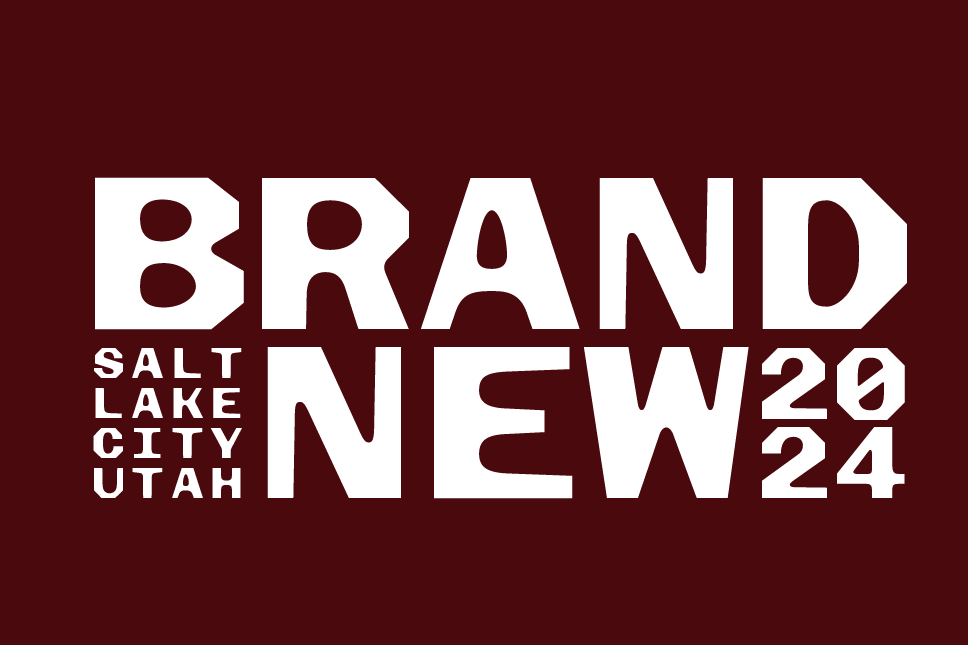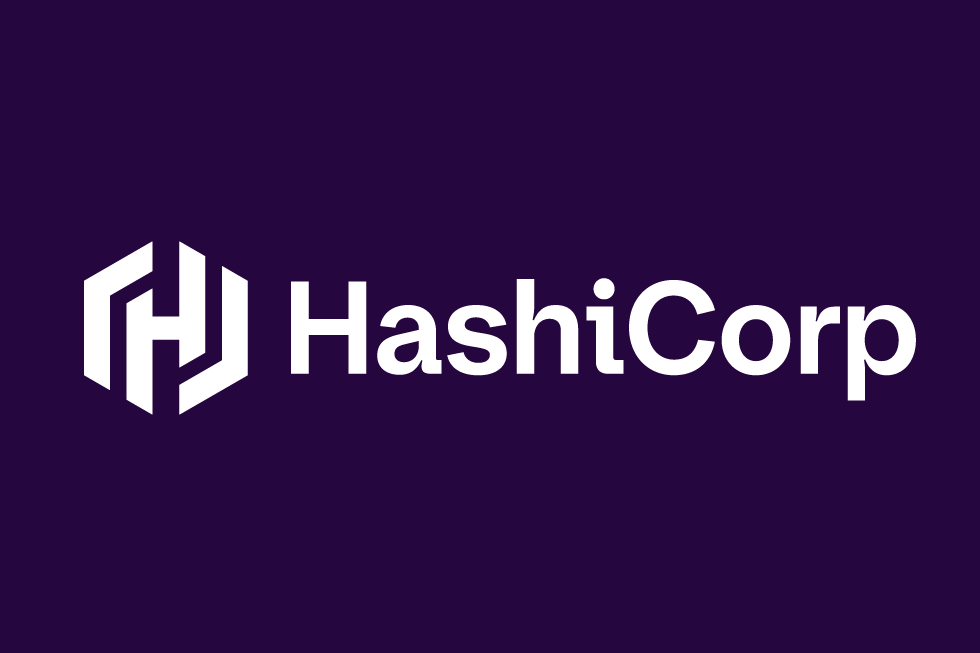
Custom type design
A custom typeface can anchor a strong visual identity, giving an organization a tool to maintain consistency at every level. We create type that puts control of your brand firmly in your hands.
Our collaborative process
Here’s an idea of what to expect when you collaborate with us on a custom typeface.
Research and visual audit
If you have an existing typographic system, we review it and speak with stakeholders to understand what is and isn’t working.
Discovery findings
We complete our research with recommendations to guide our next steps. Together, we align on aesthetic direction before design begins.
Initial concepts
Based on what we learn during our research phase, we deliver concepts in several different territories to build consensus with your team and narrow our design direction.
Beta font testing
From our concepts, we create a beta font—typically a full alphabet and basic punctuation—for you and your team to test. We incorporate your feedback in revised versions for further rounds of testing.
Final typeface design
We build out the extended character set, supporting Latin-based languages and other scripts if needed. We also add robust OpenType features and TrueType hinting.
Font software and support
We engineer technically precise font software, tuned to your priorities across current and legacy systems. You’ll get the formats you need—including variable fonts—and we support you through implementation.
The value of a custom typeface
Our continuing partnership with XYZ Type always comes back to their high craft, creative vision, and ability to express our clients’ strategic objectives through world-class typography.
Creative control
A custom typeface is designed based on your guidance and specifications. You can take part in the process from start to finish, ensuring the outcome fits your organization’s needs.
Brand integrity
We optimize our custom typefaces to work with existing assets and accurately express a brand at scale.
Adaptability
As a brand evolves with time, so should its typeface. Unlike an off-the-shelf font family, we can tweak or expand a custom typeface to fit changing needs.
Potential cost savings
In certain cases, a custom typeface can be more cost-effective than overpriced licensing fees.
Reduced vendor reliance
A one-time development fee, as opposed to subscription-based licensing, means one less vendor on your monthly fee list.
Custom-tailored fonts
For a quicker and more cost-effective option with similar benefits, we can custom-tailor one of our existing typefaces. We can redesign individual glyphs for a proprietary brand expression, adjust proportions based on use cases, add new styles, extend language support, and more.
Custom type design case studies
Updating an iconic typographic voice for New York magazine to work better across print and screen.
We replace two conflicting sans serifs with a custom typeface, streamlining the visual representation of an extensive catalog of cloud-computing products.
Working with Brunswick Creative, we capture the essence of a classic logo in a versatile and feature-rich script typeface for broad marketing applications.
Handpainted lettering on an 1870s streetcar inspires our boisterous monospace typeface for the leading visual identity conference.
Interbrand challenges us to unite a growing portfolio of divisions and products with a custom typeface that ties to this British institution’s legacy.
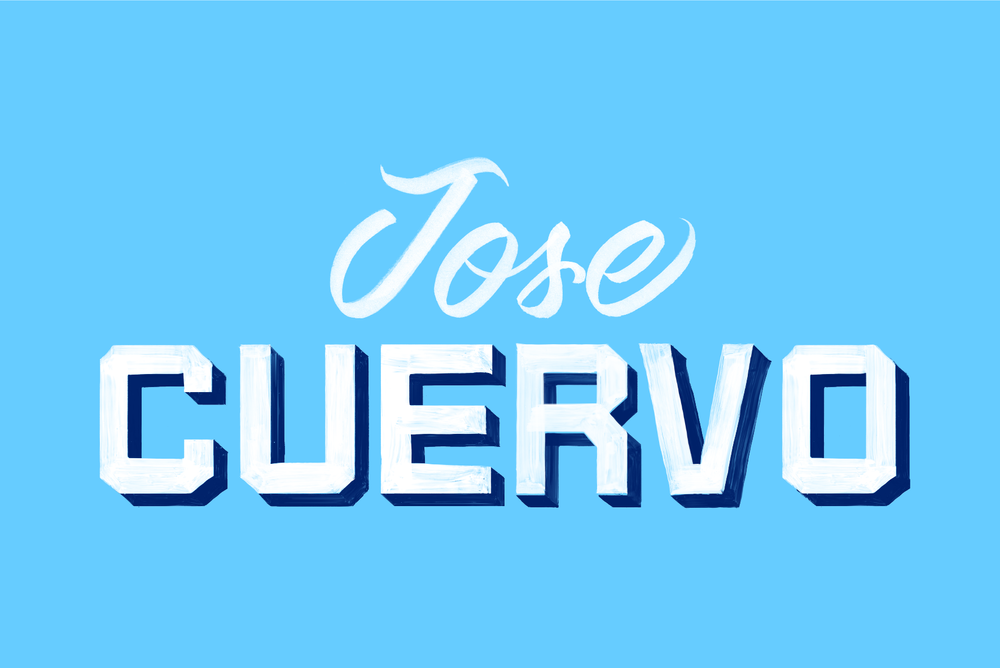
Building on our technical expertise, we transform sign painting into a collection of color fonts celebrating Jose Cuervo’s two-century-old business.
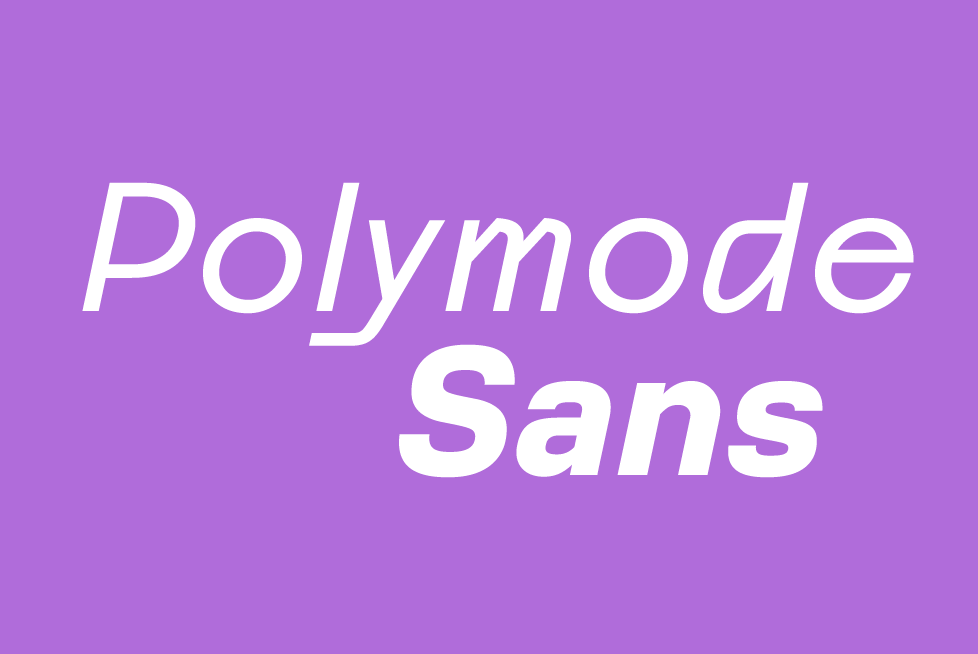
The multifaceted personal identities of a design studio’s partners inspire a peculiar variable typeface with a striking range of voices.
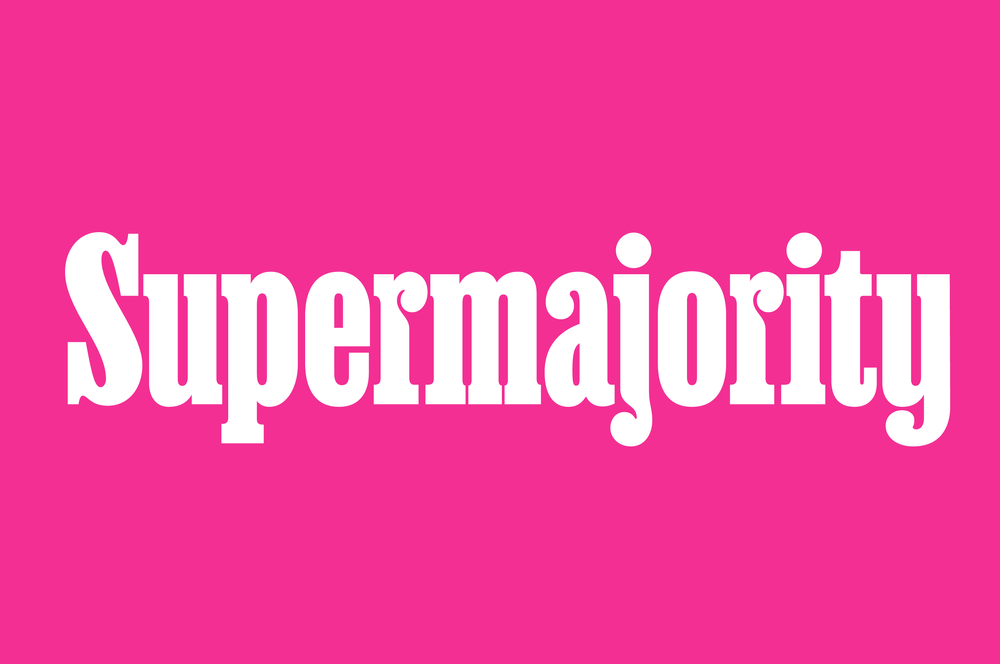
For an organization promoting women's equality, Champions Design requests clever compression of a typeface so that a long name can scale to epic heights.
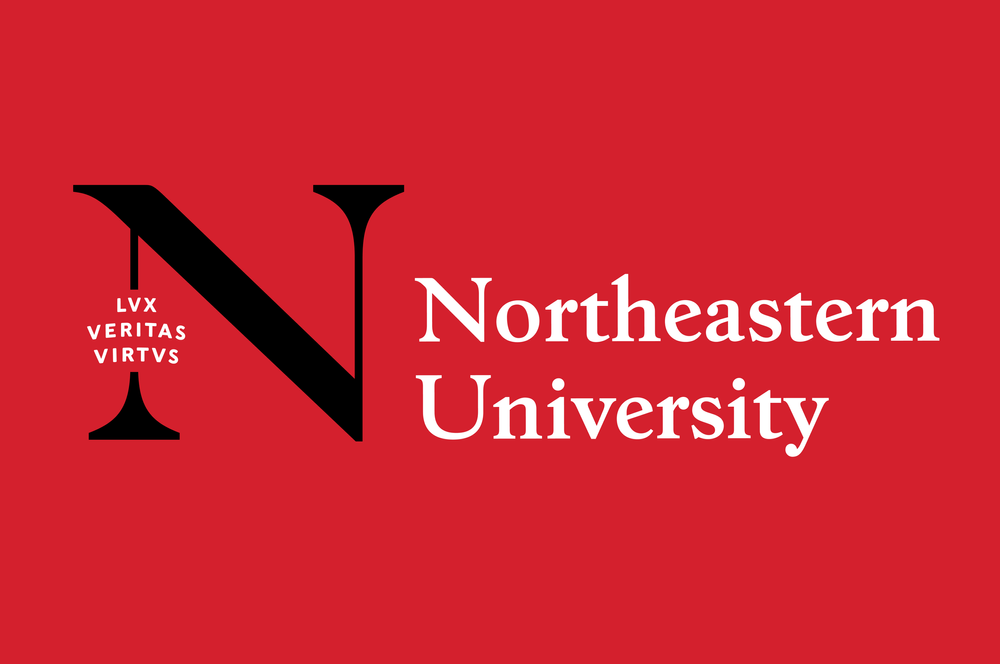
We extend the capabilities of Boston-based studio Upstatement, developing custom lettering and type integral to their identity system for the growing university.
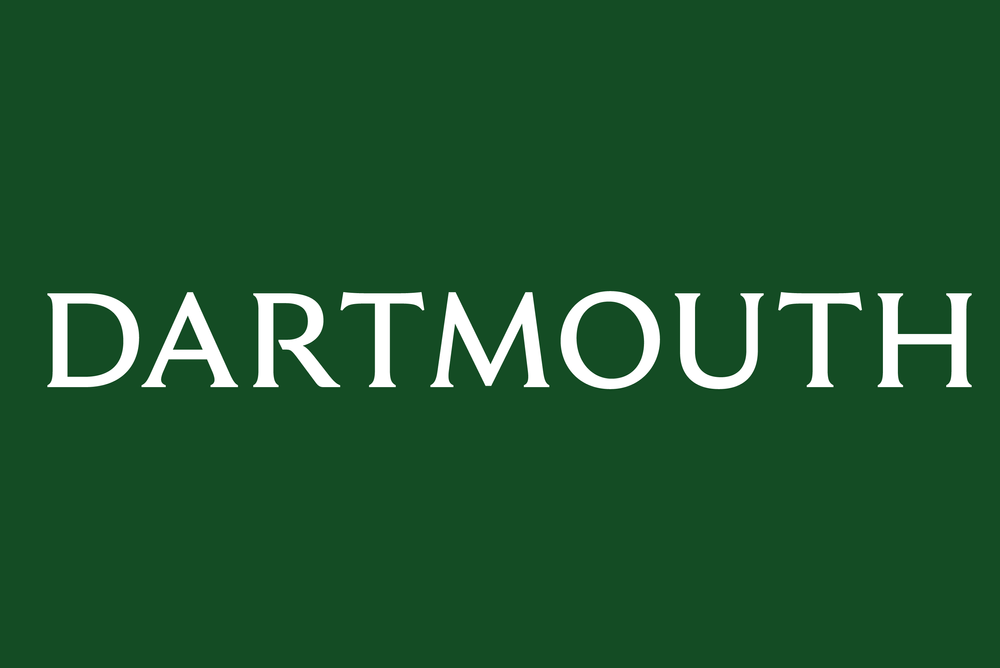
Our passion project celebrating a favorite typeface designer finds its perfect home in Champions Design’s updated identity system for this prestigious university.